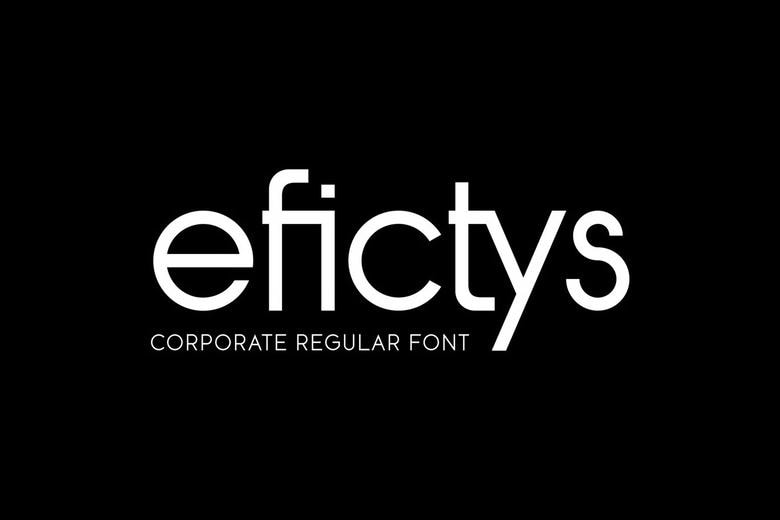
Efictys Font
Efictys Font – Corporate Regular Font is a bold and authentic display font. The font is suitable for any branding project like logo, esport, and many more. outstanding in a wide range of contexts.
Efictys Sans Serif Font